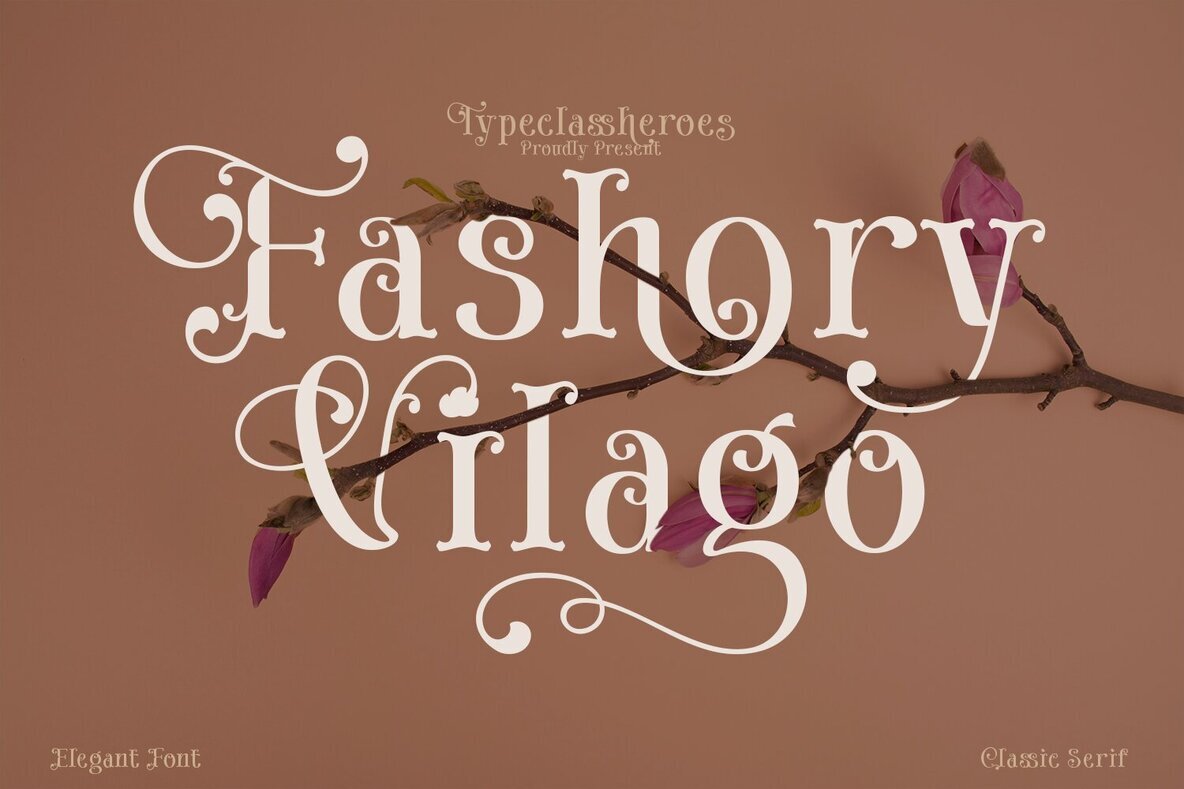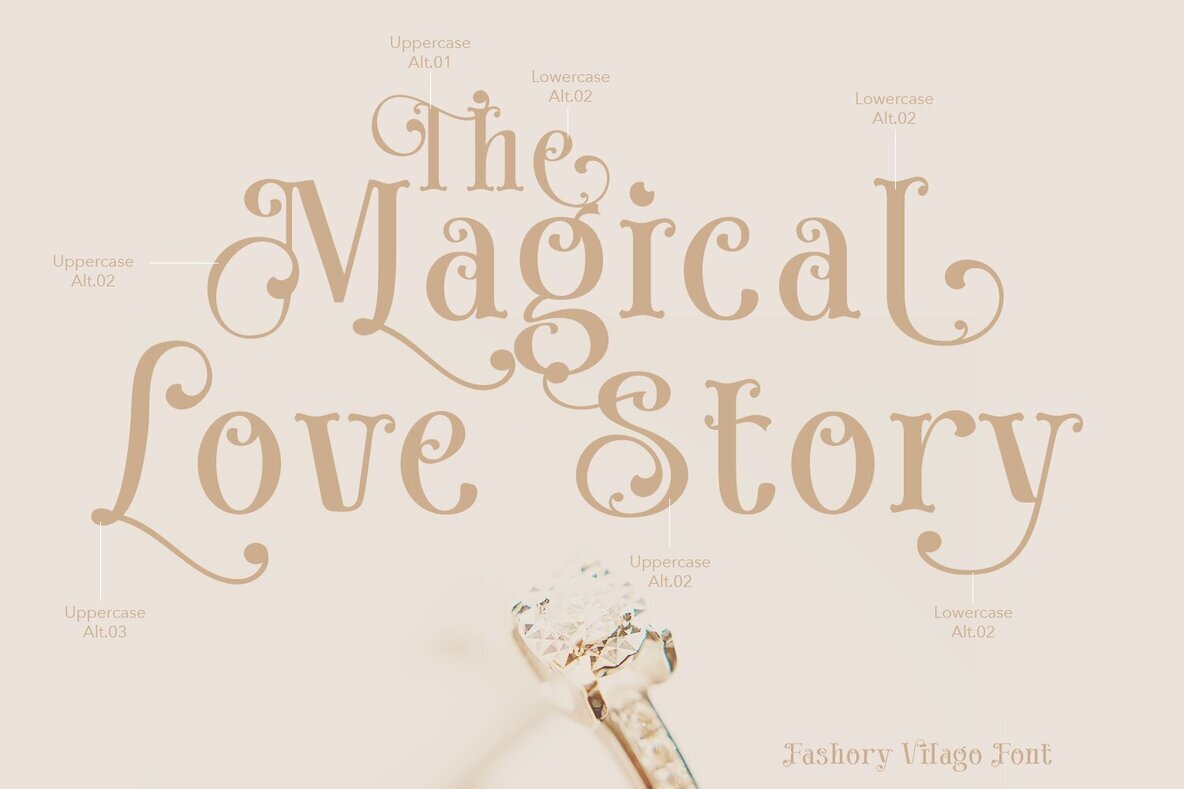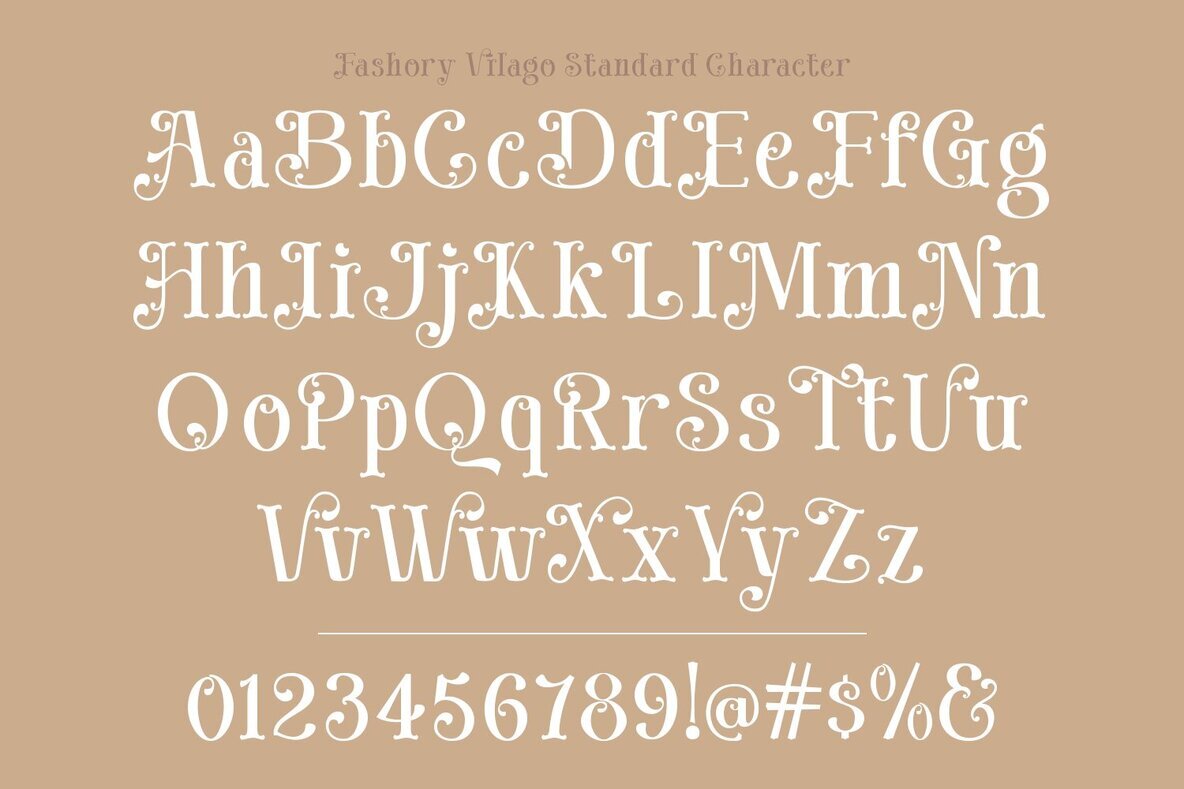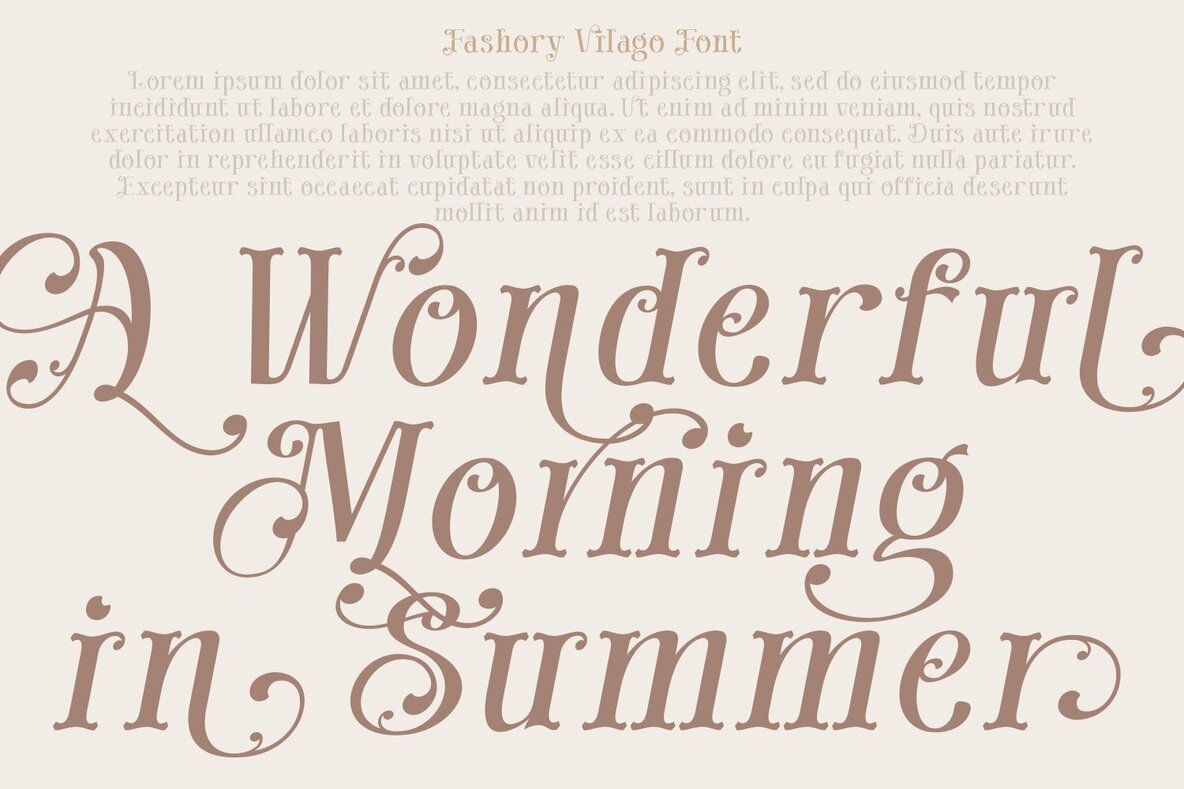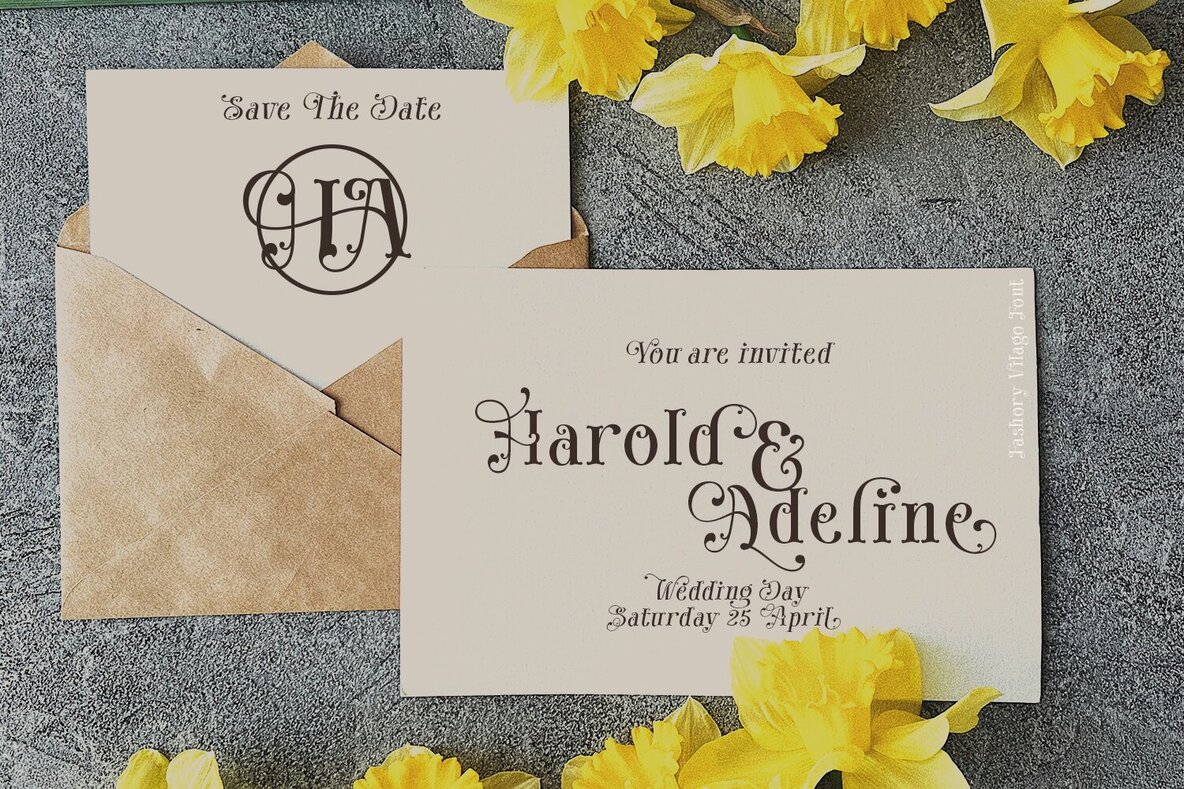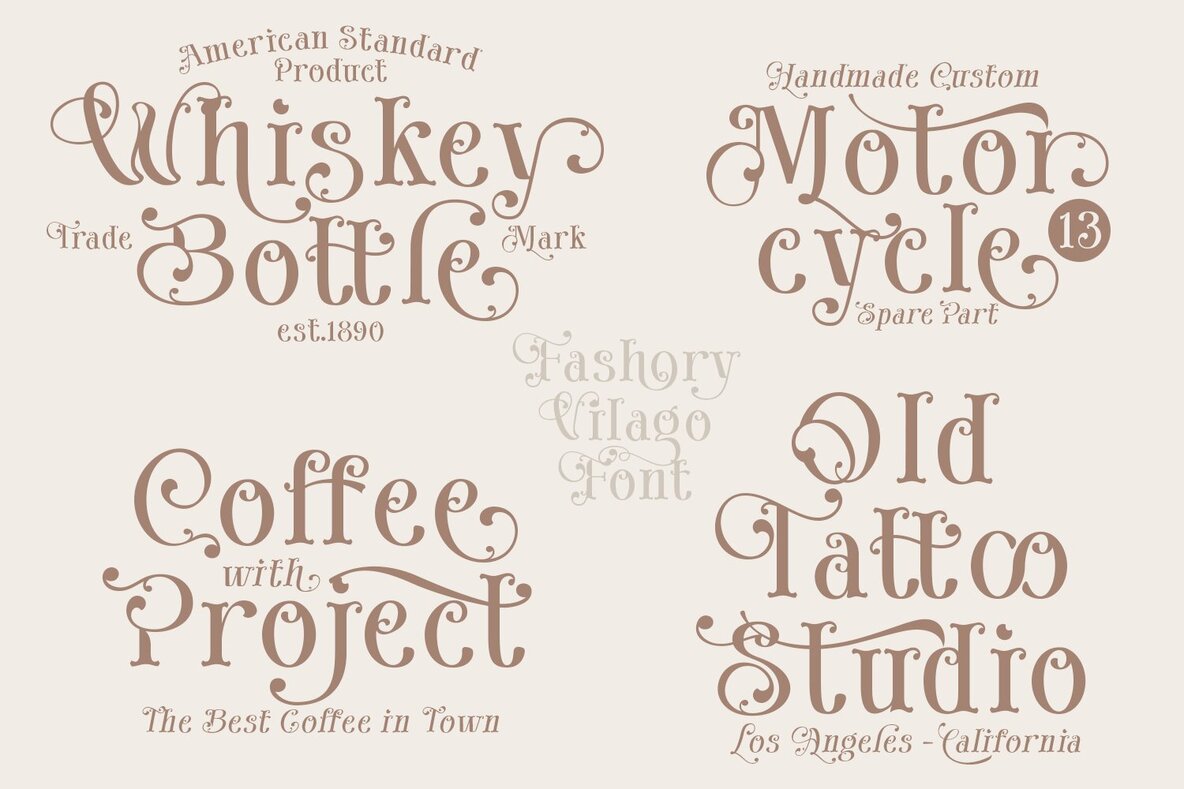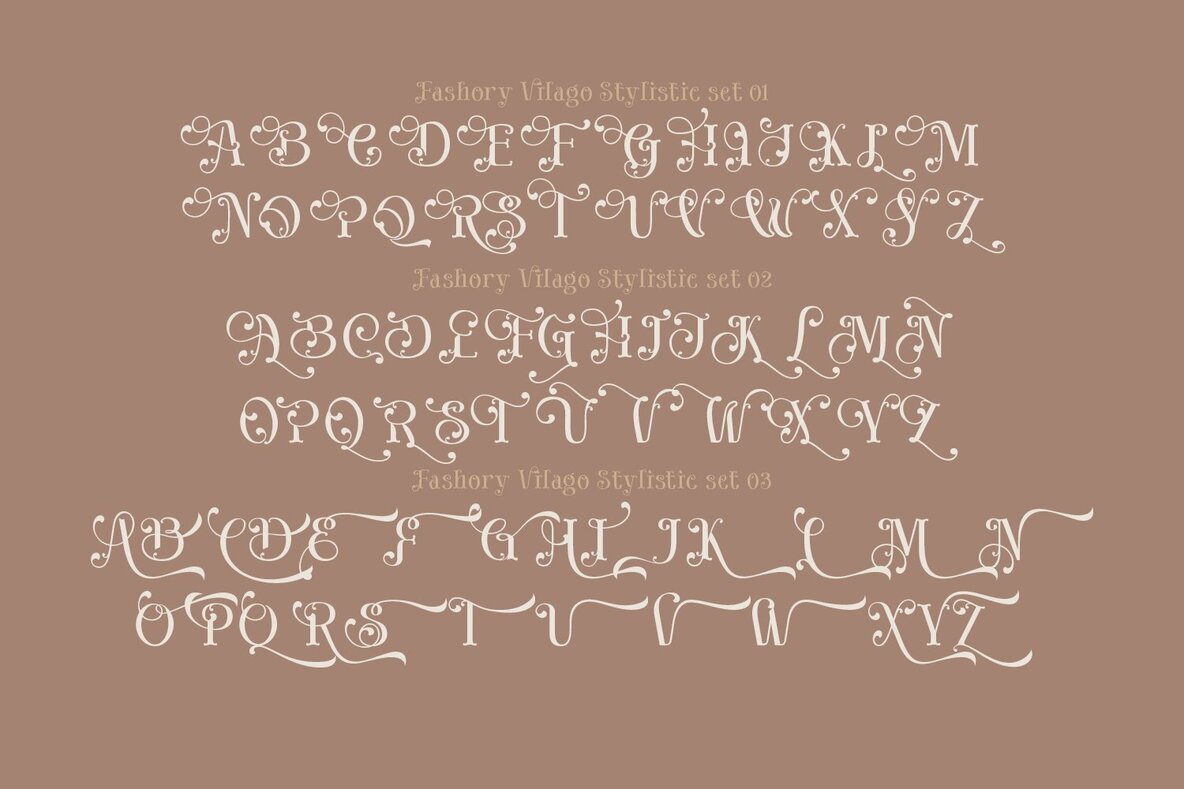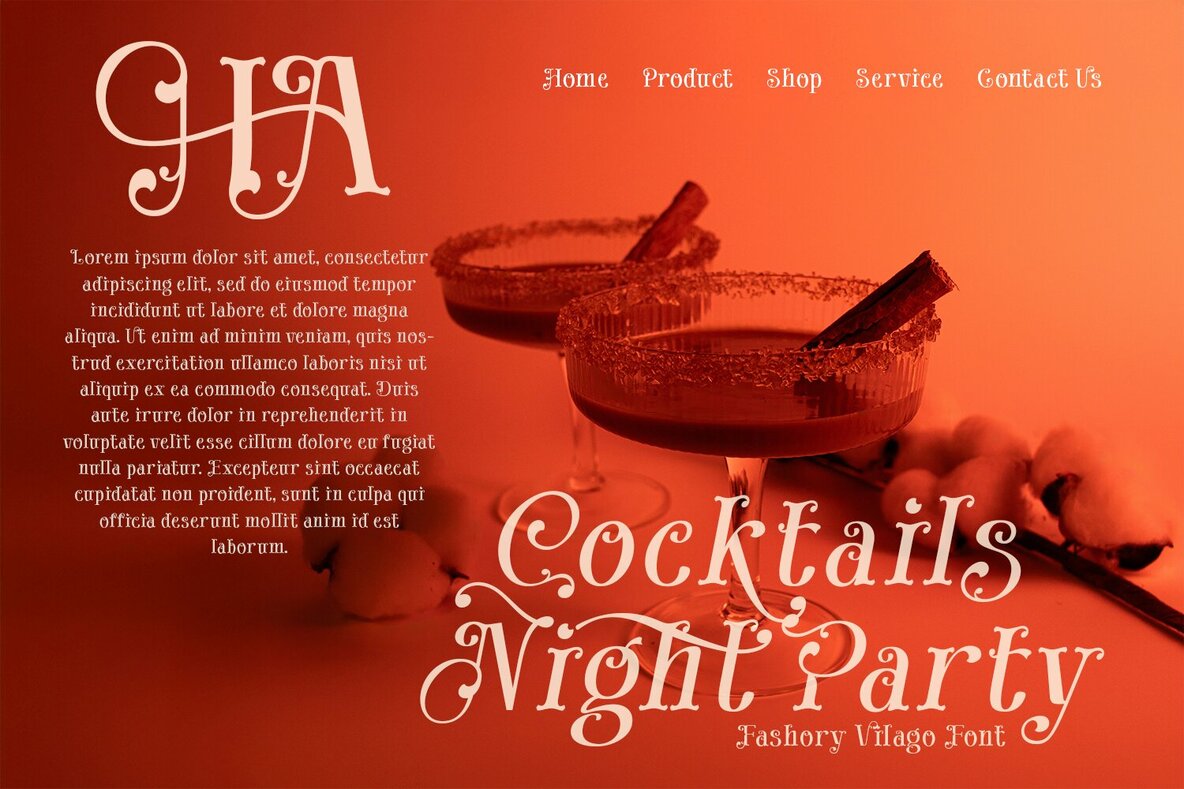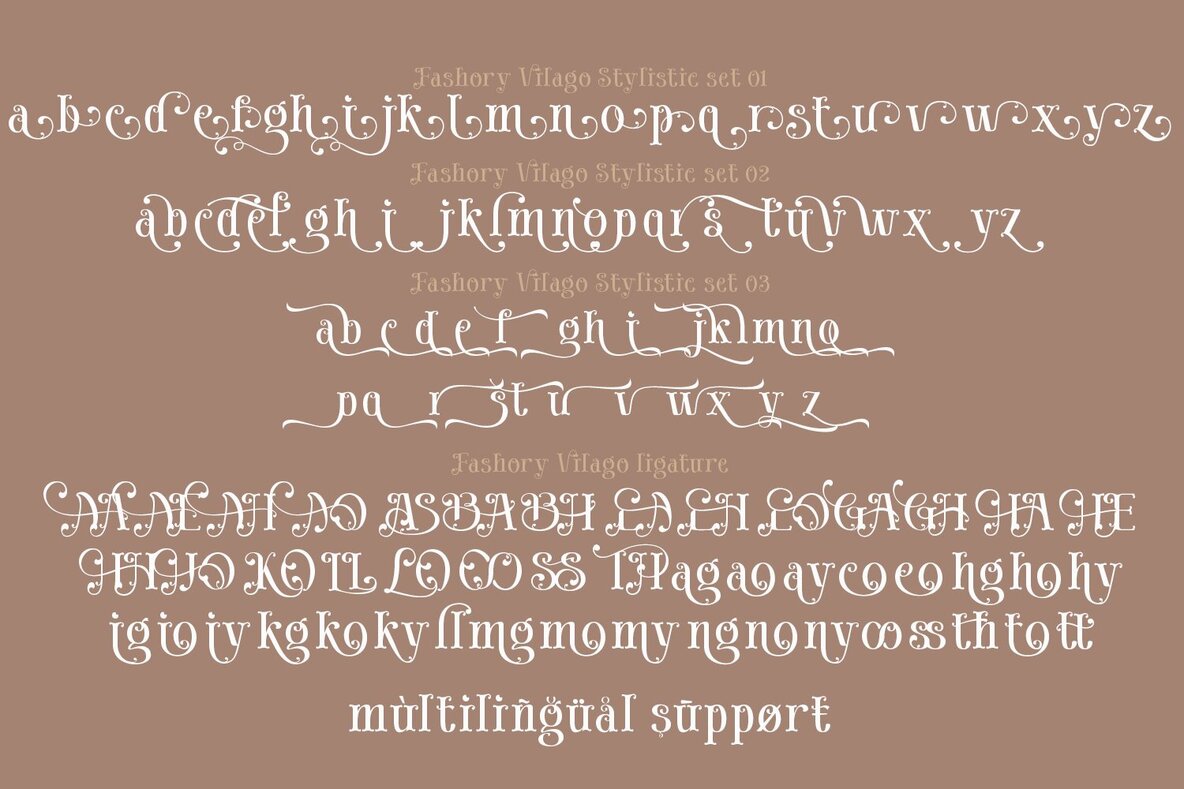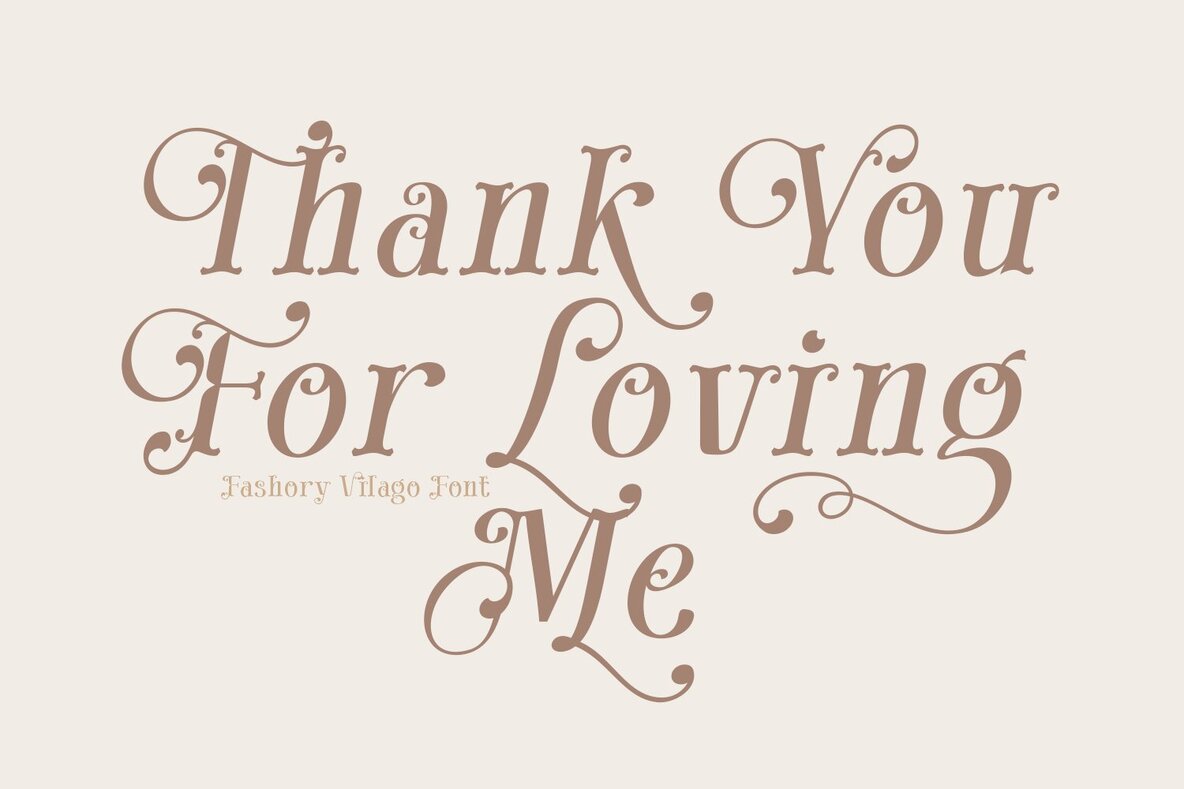
Fashory Vilago Font
Fashory Vilago is a classic serif font designed to infuse your projects with a unique and trendy style. Featuring fashionable ligatures, special characters, and elegant swashes, this typeface offers a harmonious balance between classic elegance and modern flair.Fashory Vilago Typeface
Perfect for Various Uses